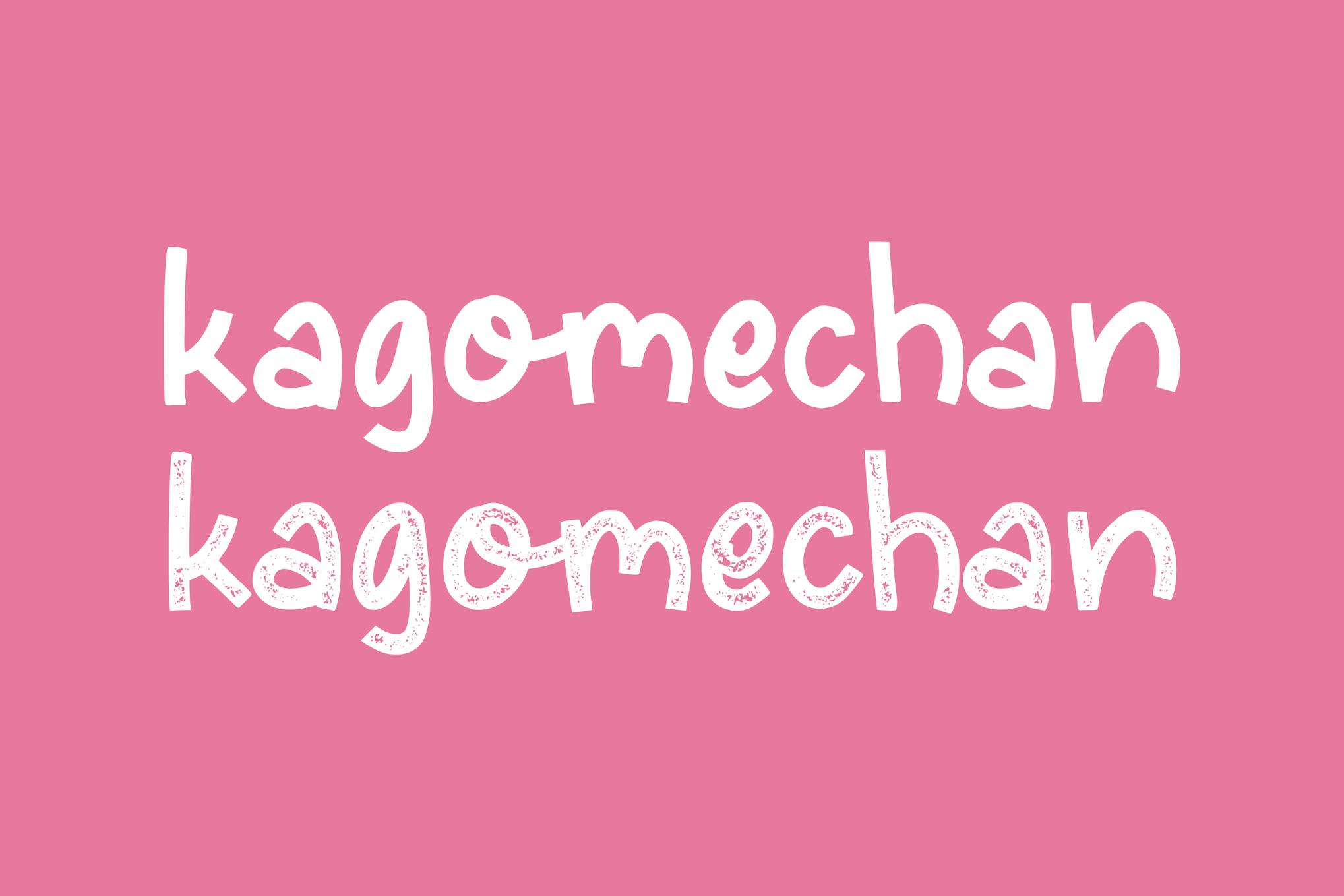
AL - Kagomechan Font
Perfect for comic books, playful branding, children’s products, posters, social media graphics, and creative editorial projects.
The AL - Kagomechan Font excites designers with its fun, quirky, and bubbly style that brings a cheerful and youthful vibe to any design.
The AL - Kagomechan Font Free Download is a vibrant typeface crafted to add energy and playfulness to your creative projects. Its rounded edges and lively character make it perfect for designs that want to convey joy, fun, and approachability. Whether you’re working on kids’ products, comics, or social media content, Kagomechan delivers a spirited impact.
One of the key strengths of AL - Kagomechan Font is its unique blend of readability and whimsical style. It keeps text clear and engaging, making it ideal for headlines and display text that need to catch the eye.
In branding, Kagomechan communicates friendliness, creativity, and youthful energy. It pairs excellently with bright colors, dynamic layouts, and playful illustrations, helping brands connect with families and young audiences.
For digital projects, this font enhances website headers, social media posts, and promotional materials with its bubbly and fun personality. Its energetic style ensures your digital presence stands out with charm and positivity.